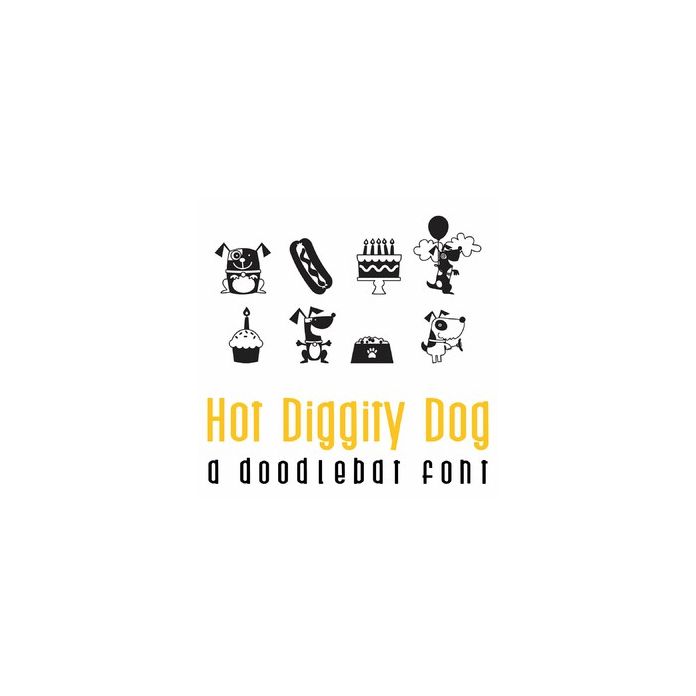
This fun doodlebat font features 26 adorable dogs, dog items, and dogs ready to party. Perfect for cards, gifts, decor, crafts, scrap book pages, planner stickers and more!